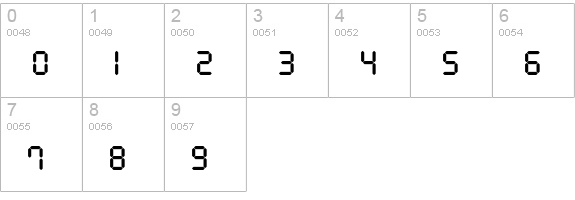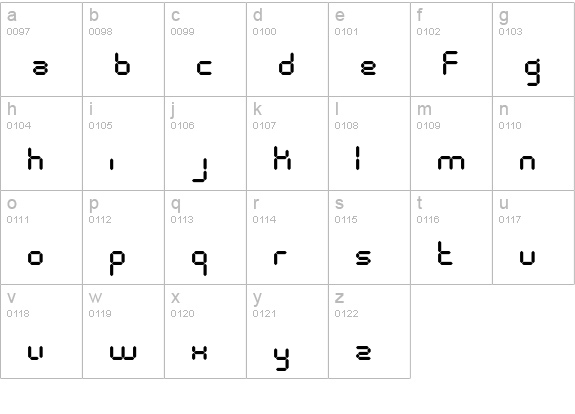
CalculusRegular Font Details
CalculusRegular font is a versatile and modern typeface that is perfect for a wide range of design projects. Its clean lines and geometric shapes give it a sleek and professional look, making it ideal for both digital and print applications. Whether you're designing a website, creating a logo, or working on a branding project, CalculusRegular font is sure to make your text stand out. Best of all, CalculusRegular font is available for free download at FontsMarket.com. You can easily access this high-quality font without any cost, making it a valuable addition to your font collection. Don't miss out on this opportunity to enhance your designs with the stylish and contemporary CalculusRegular font. Download it today and elevate your projects with its modern aesthetic.